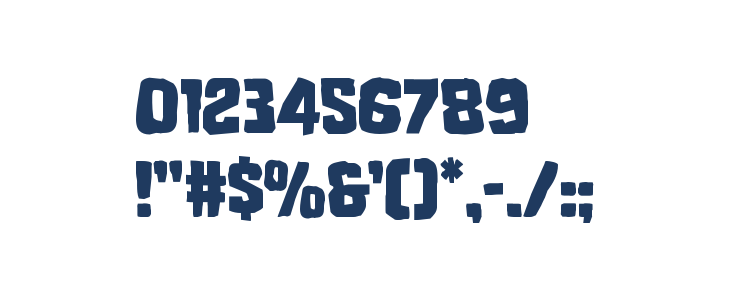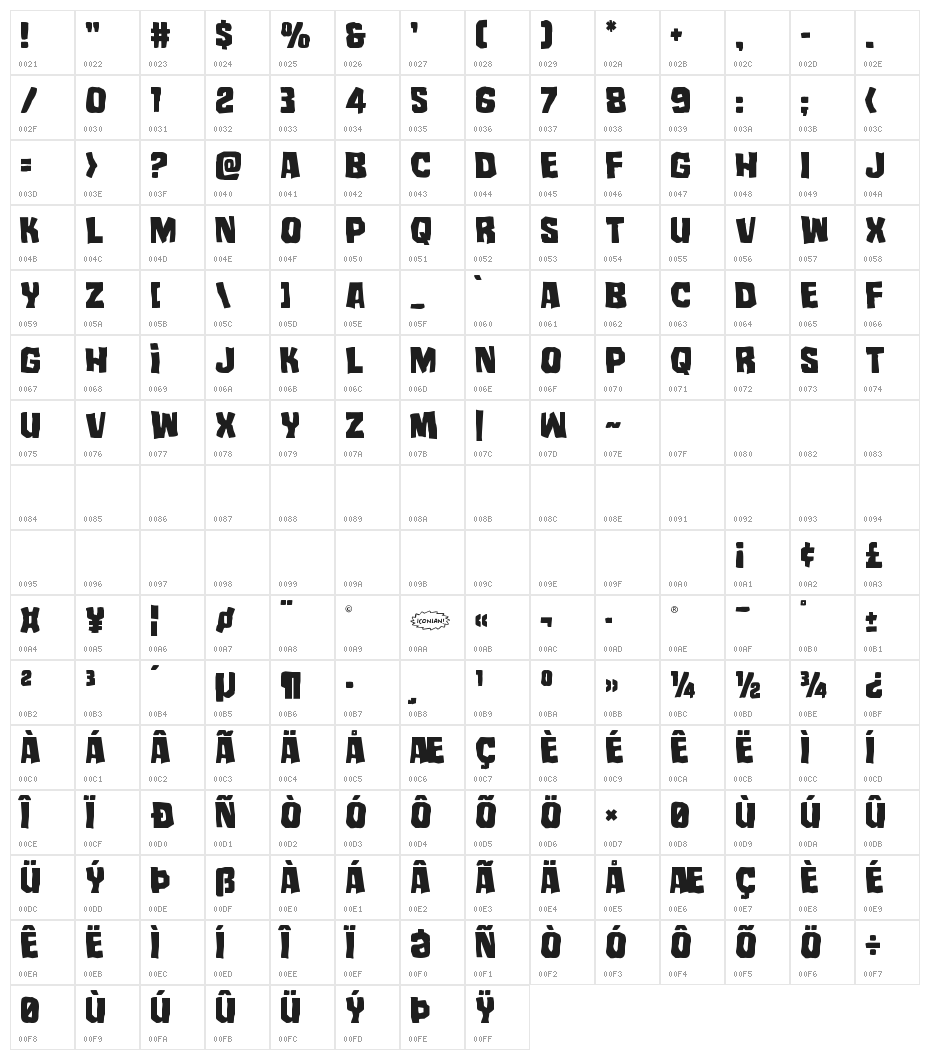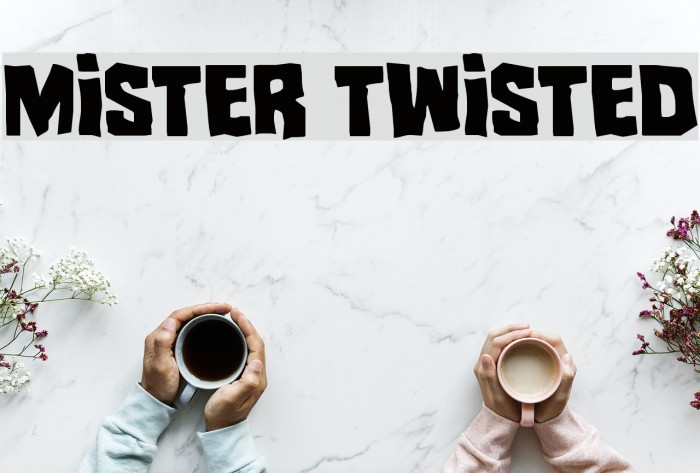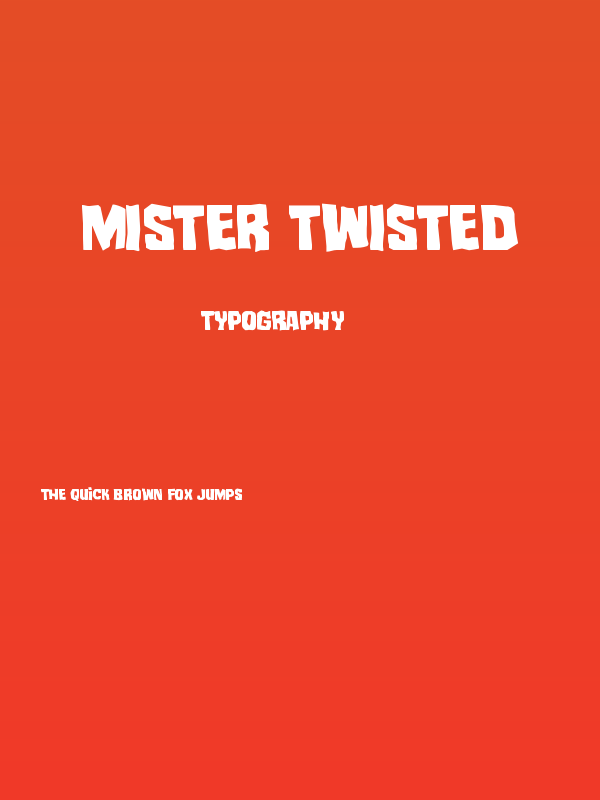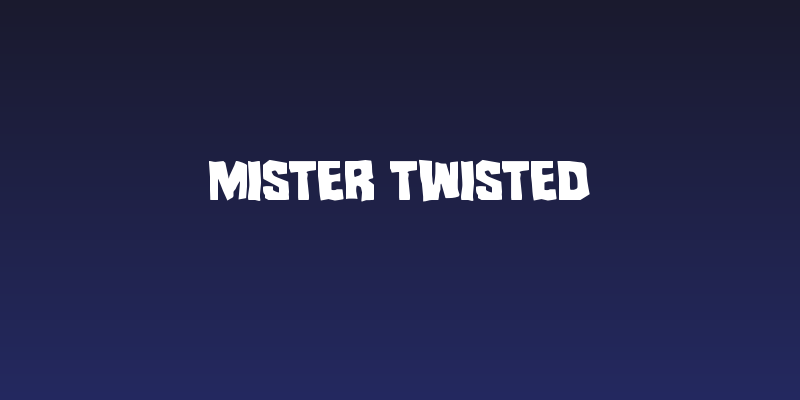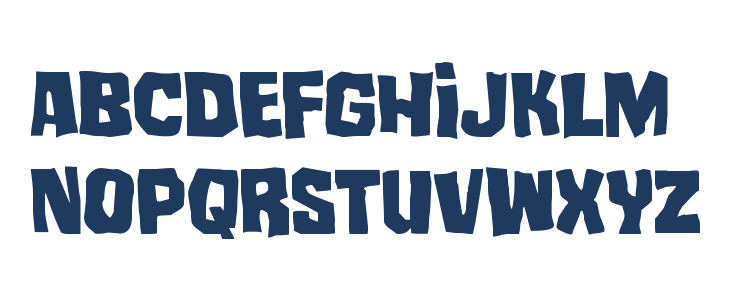
Mister Twisted Font
Mister Twisted Description
This font features a bold and playful design with irregular, jagged edges that give it a twisted, dynamic appearance. The characters are heavily stylized, with each letter exhibiting unique angles and curves, creating a sense of movement and energy. The uppercase and lowercase letters maintain a consistent height, while the numbers and special characters follow the same quirky style. This font is perfect for projects that require a fun and unconventional look, making it ideal for creative and artistic applications.
Proposed ProjectsIdeal for posters, album covers, children's books, and any creative project needing a fun, unconventional style.